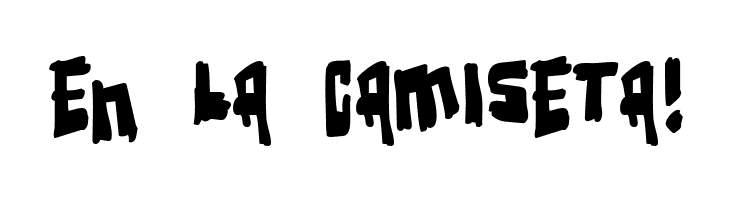
Alota-DemoVersion Font
- Font: Alota-DemoVersion
( Fonts by Antonio Bucu - AdamAnt Designs )
A bold, grunge-style font with a sketchy, graffiti-inspired look.